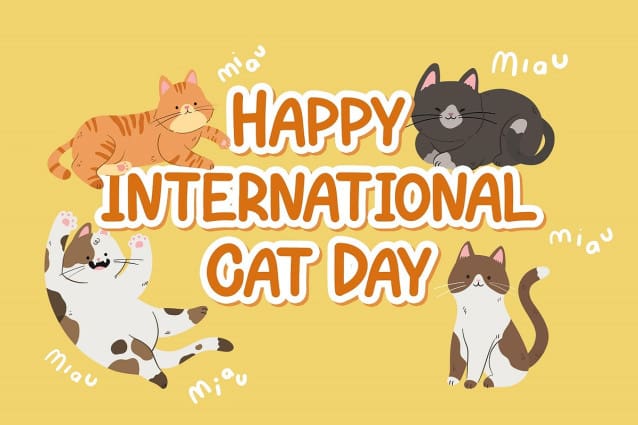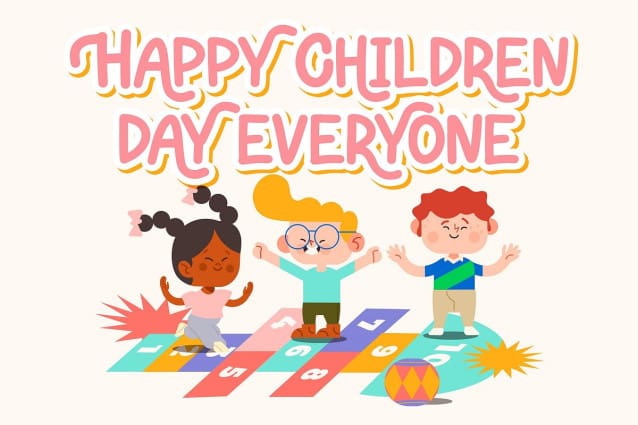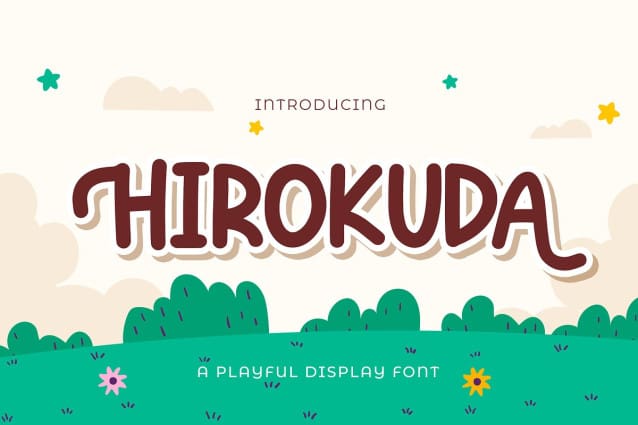
Hirokuda Playful Font
Hirokuda Playful Font is a fun display font. Playful and fresh, this font will be a hit for each of your children or school projects!